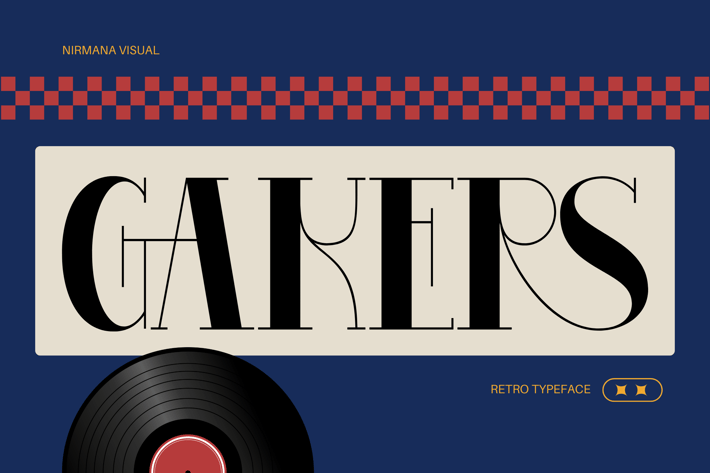
Gakers Retro - Branding Logo Font
Gakers Retro Font offers beautiful typographic harmony for a diversity of design projects, including logos & branding, social media posts, advertisements & product designs.